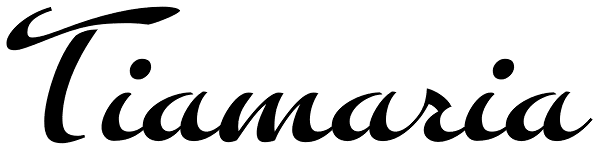
Tiamaria
In the 70's I went out with a girl whose father was a card-carrying member of 3 of the biggest unions in the printing arts. He gave me 2 things, a pre-war Linotype specimen book and an ancient 'how to' lettering book that contained 30 or 40 script...